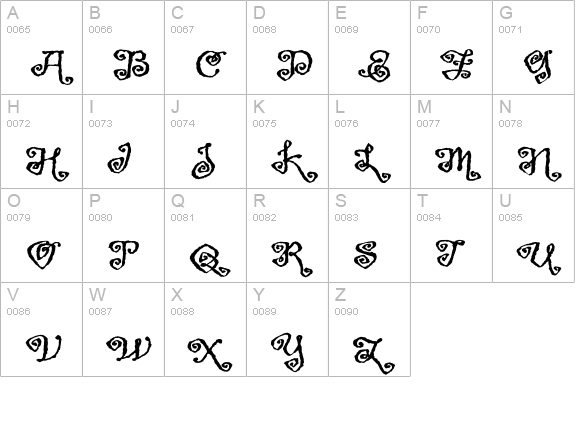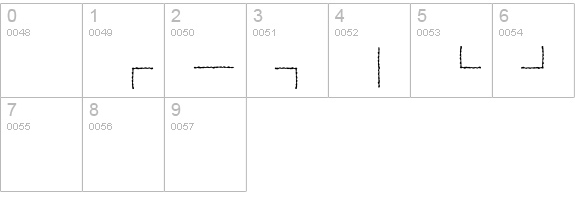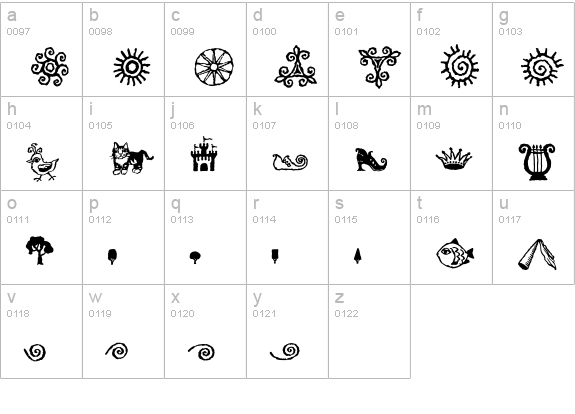
GreymantleExtras Font Details
GreymantleExtras font is a stunning and versatile typeface that adds a touch of elegance and sophistication to any design project. Featuring a wide range of unique characters and decorative elements, this font is perfect for creating eye-catching headlines, logos, invitations, and more. But the best part? GreymantleExtras font is completely free to download at FontsMarket.com! Whether you're a professional designer or a hobbyist looking to elevate your projects, this font is a must-have in your collection. With its intricate details and stylish aesthetic, GreymantleExtras font is sure to make a statement and leave a lasting impression. Download it today and unleash your creativity with this exceptional font.